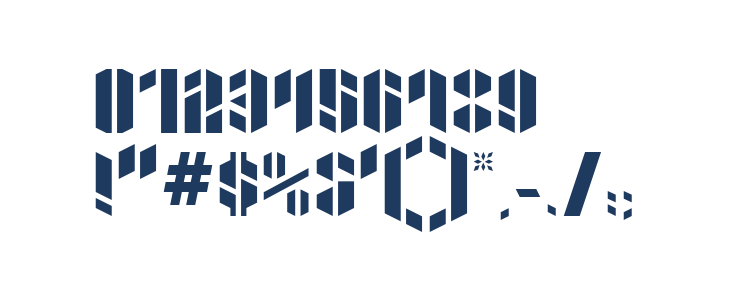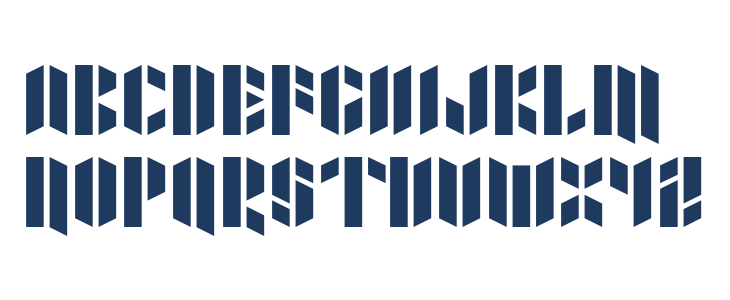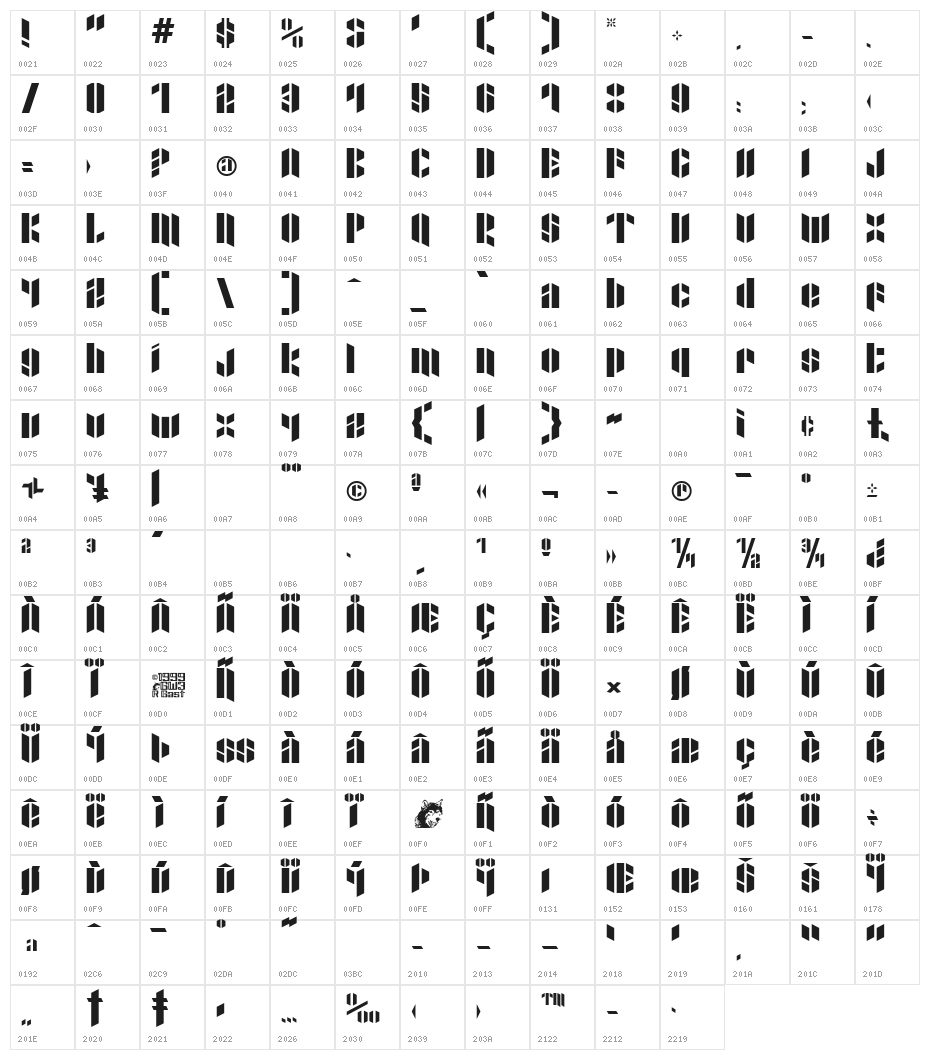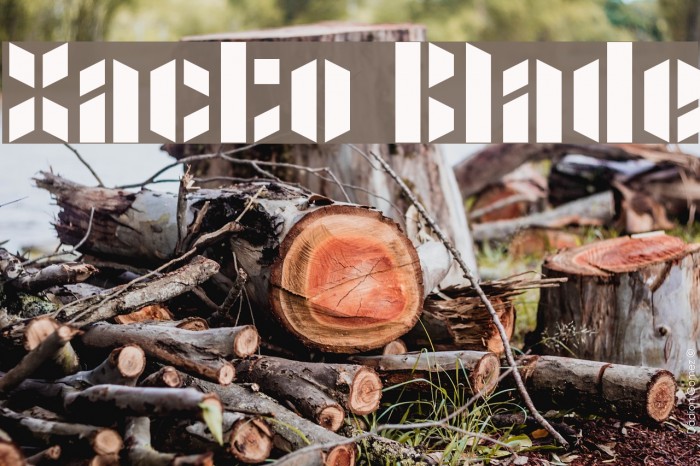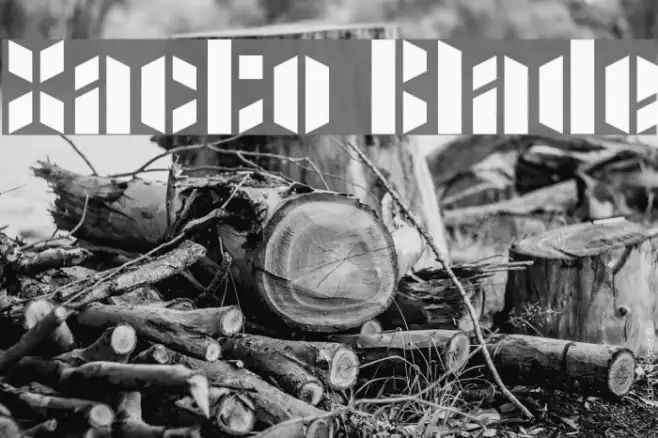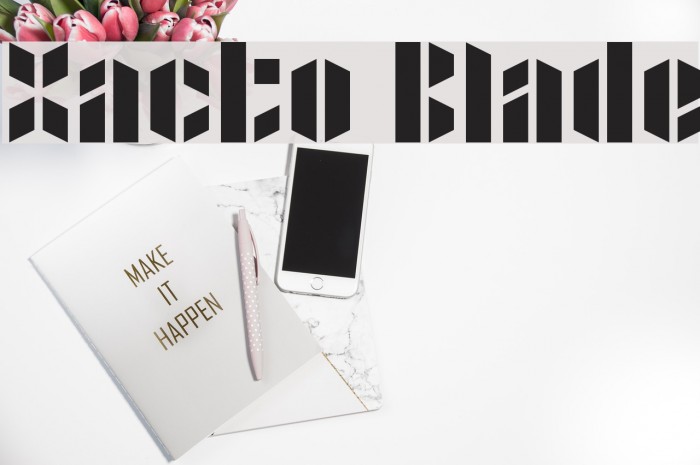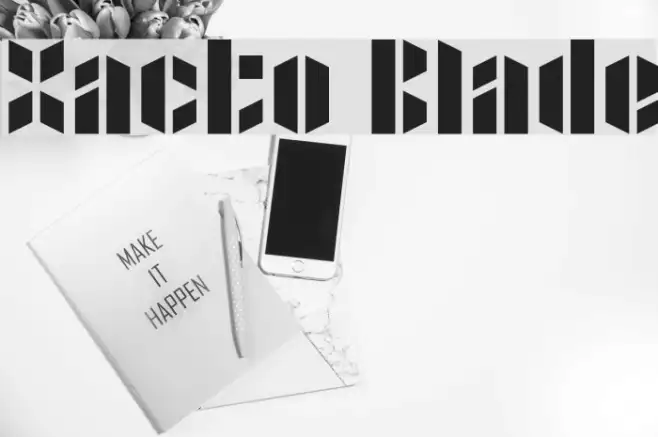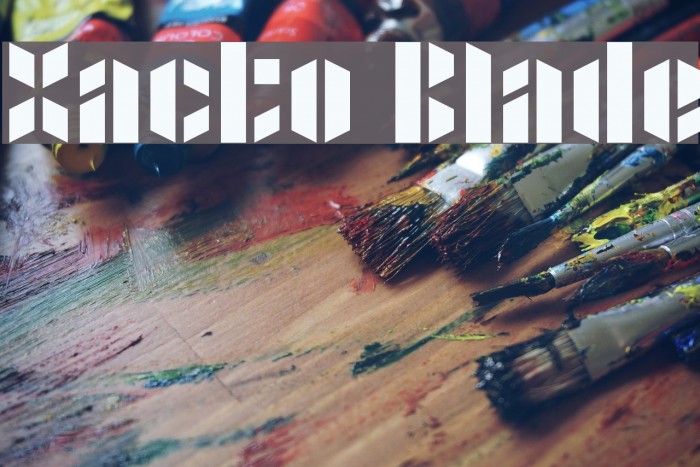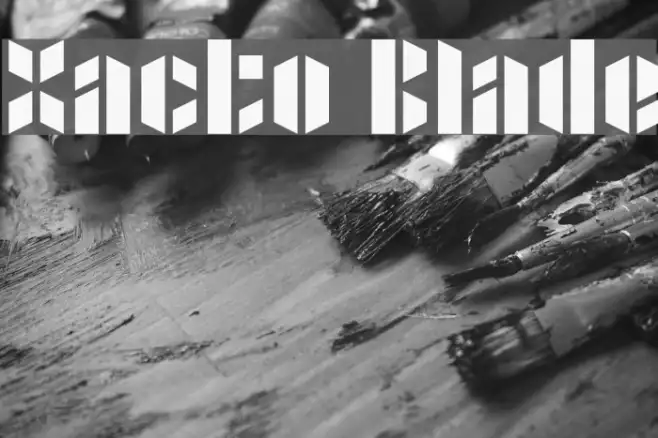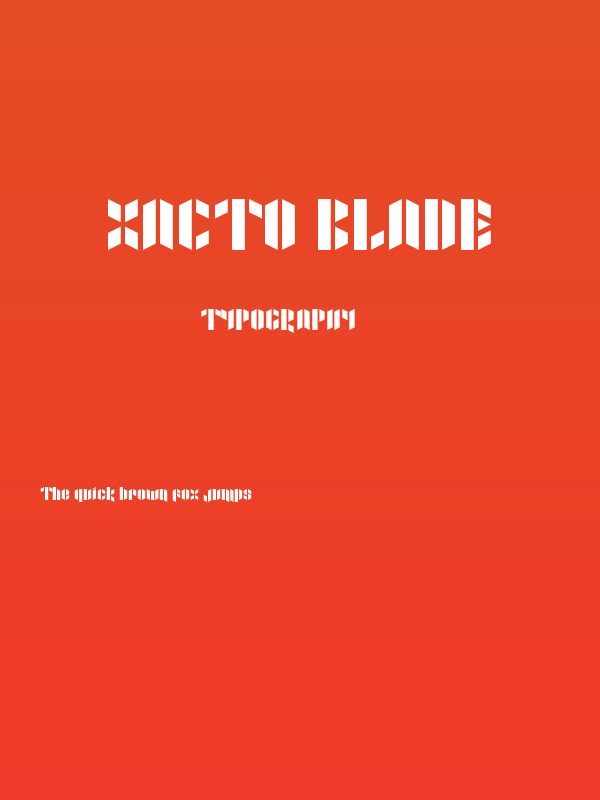
Xacto Blade Font
Xacto Blade Description
This font features a bold, geometric design with sharp, angular edges and a distinct stencil-like appearance. The characters are constructed with thick, solid strokes, creating a strong visual impact. The uppercase and lowercase letters maintain a consistent style, emphasizing the angular cuts and negative spaces that give the font its unique, edgy look. The numerals and special characters follow the same design principles, ensuring uniformity across all elements. This font is ideal for projects that require a modern, industrial aesthetic, offering a striking presence that commands attention.
| Proposed Projects | Ideal for branding, posters, album covers, and any design requiring a modern, industrial look. |